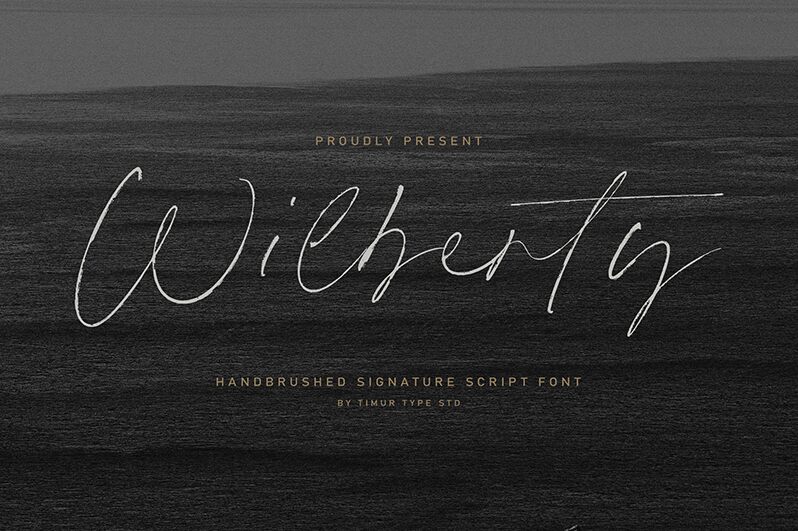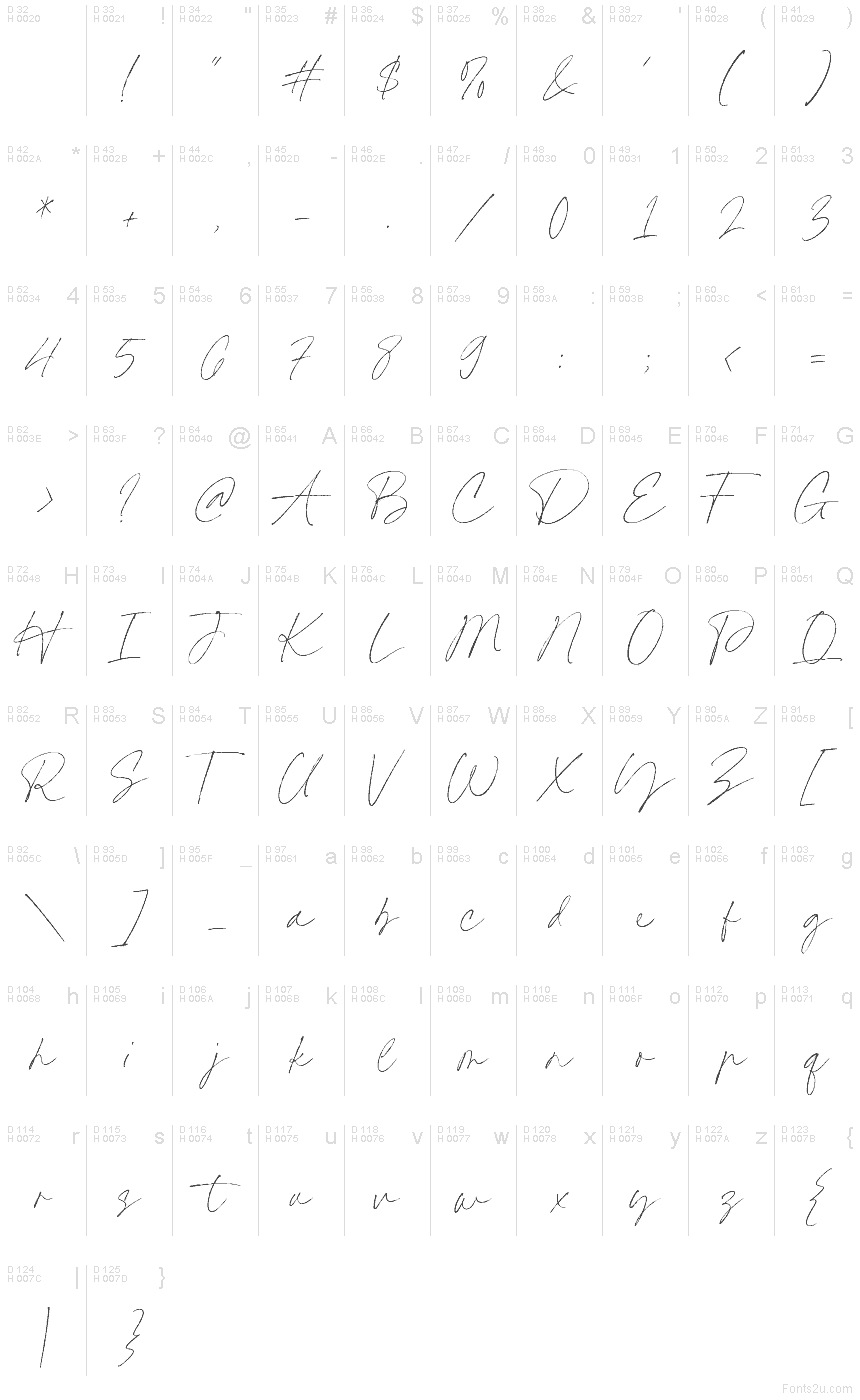
Wilberty
Wilberty font is a remarkable handwritten typeface by Timur Type. The light and expressive font has a signature look that feels personal and which doesn’t appear raw or unrefined as it’s often the case with free handwritten fonts. It puts on a display of elegance while still preserving the freeform aesthetics that accompany natural handwriting.
Appealing titles for magazines go great when presented using this font, as are branding materials that require an innovative touch. Use Wilberty for packaging, event invitations, posters, cards, website headings, and tattoo designs! Readers can enjoy their favorite book titles typed in Wilberty or download an app with a welcoming user interface crafted with this font.